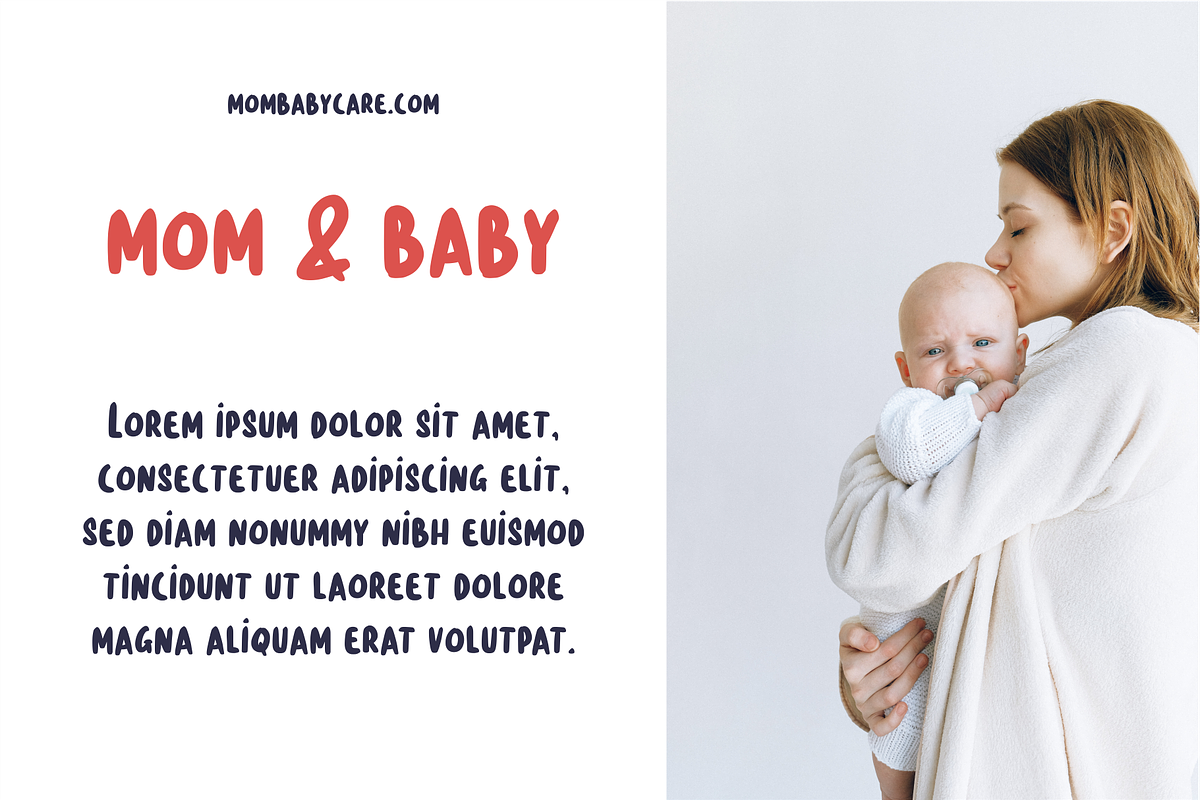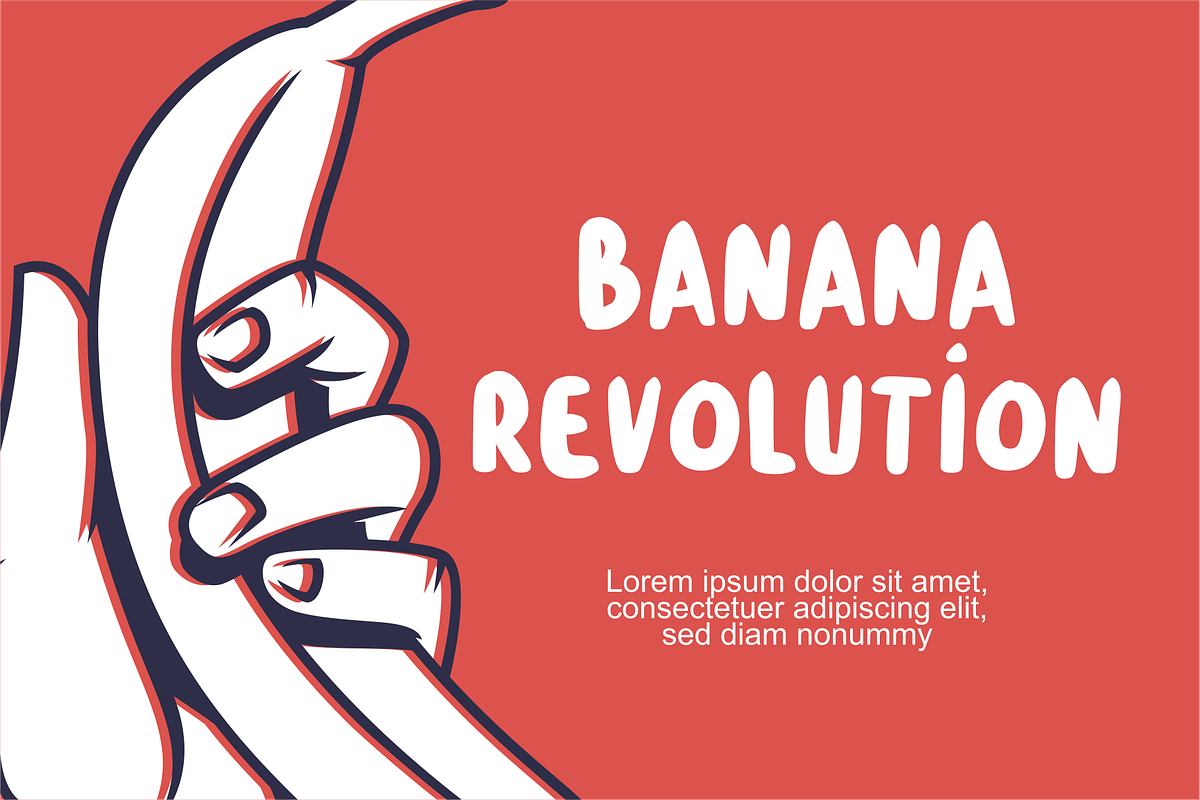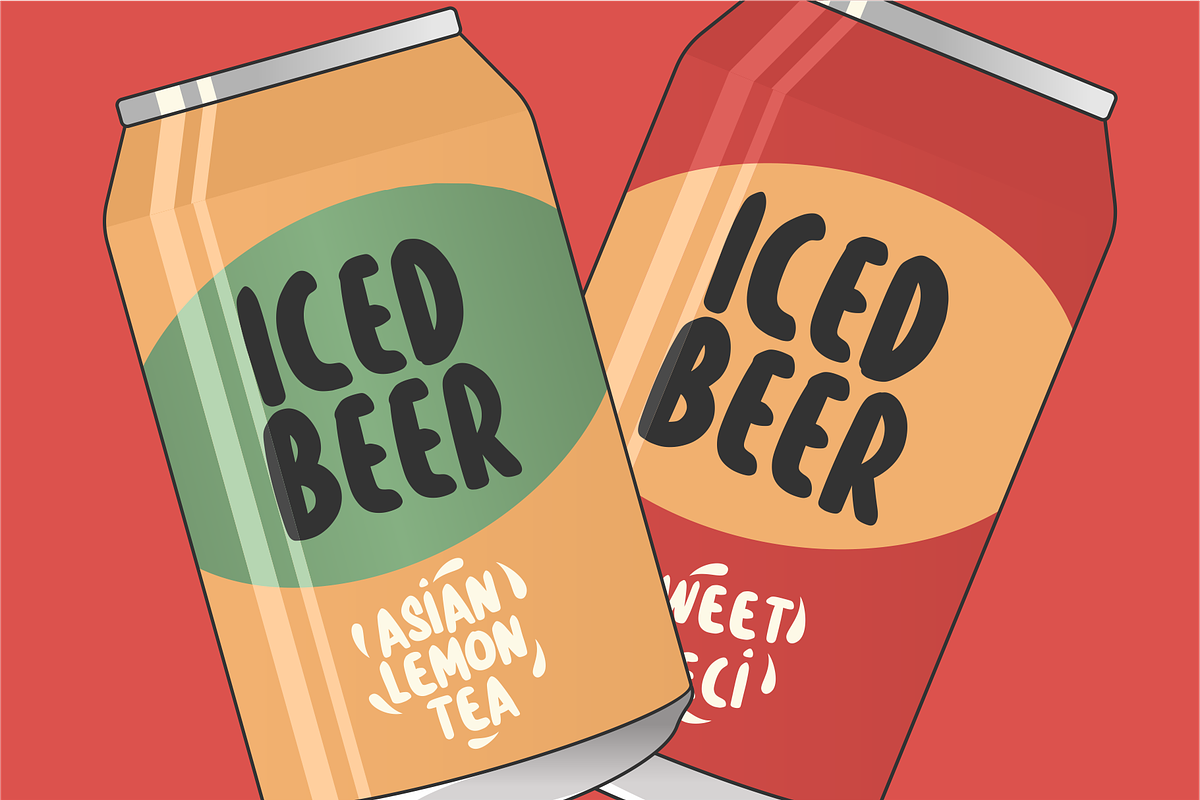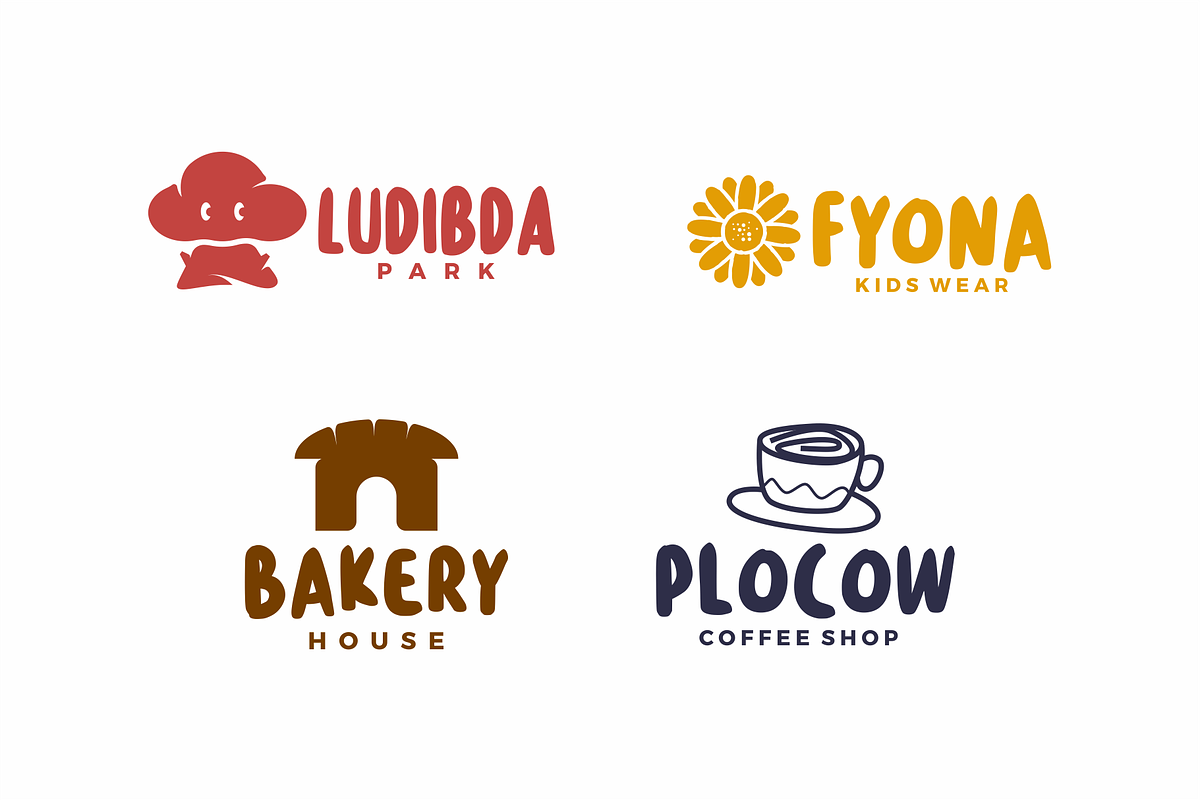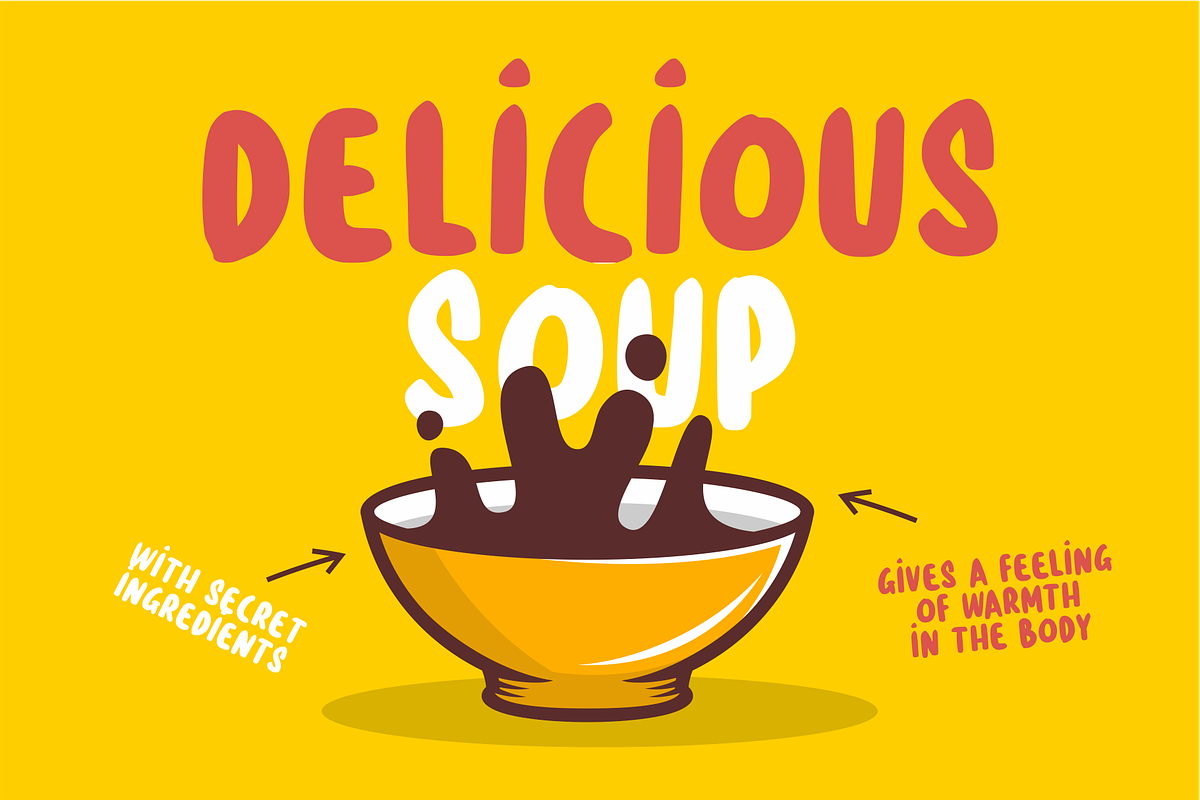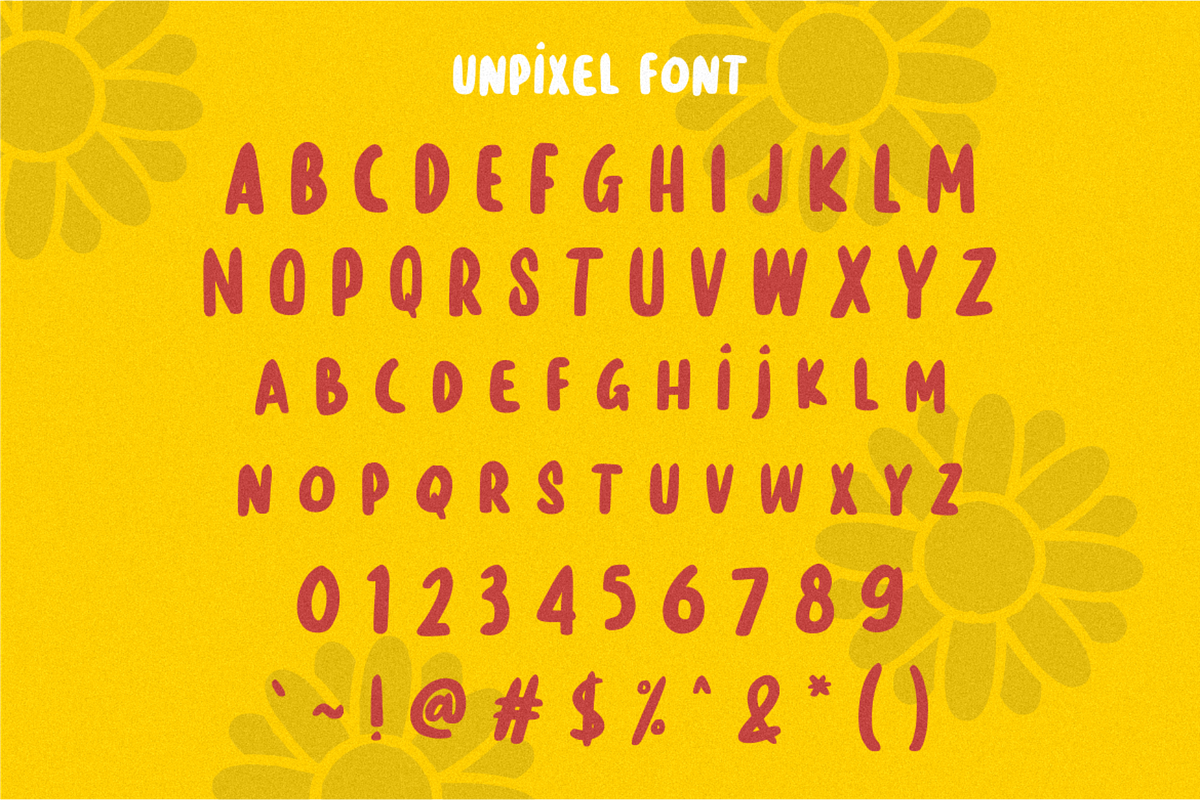
Unpixel Playful Handwritten Font
Unpixel is font handwritten kids style, this font is suitable for logos, cover titles, posters, invitations, advertising, and other design products.
Unpixel Playful Handwritten Font by 24Design Studios fits naturally into Branding, posters, packaging, typography.